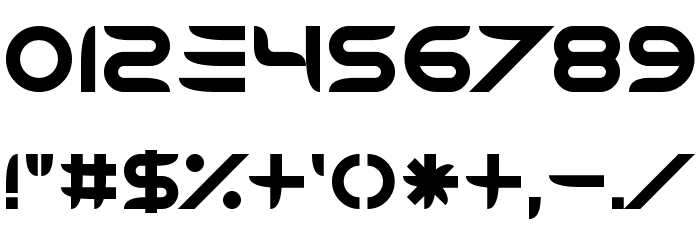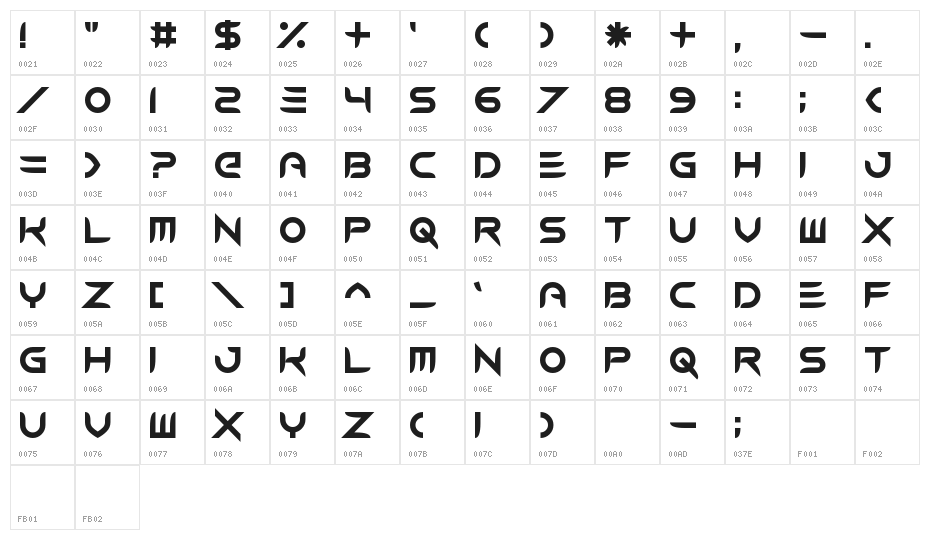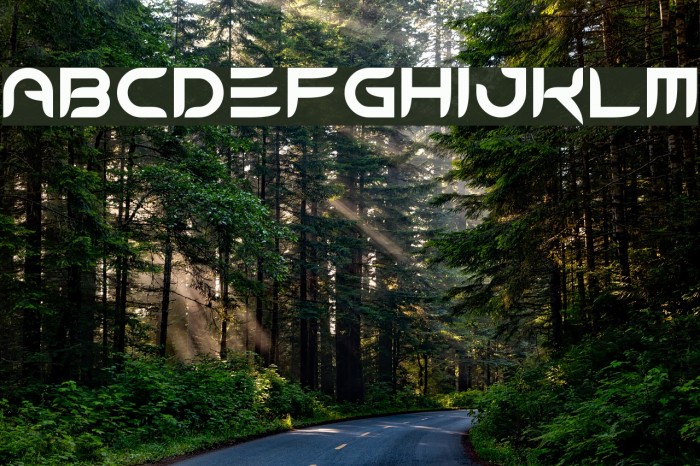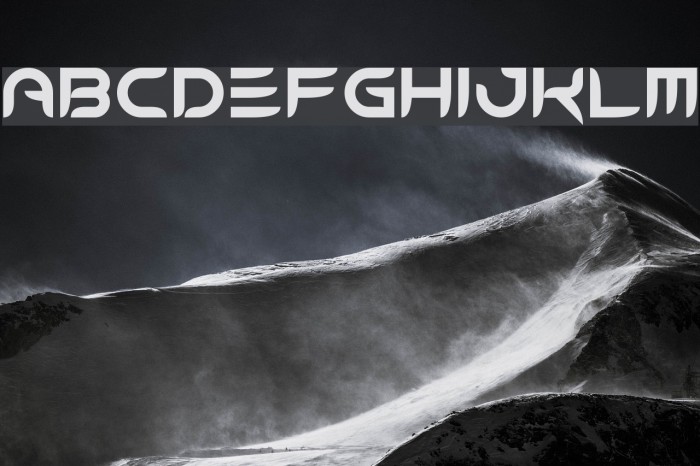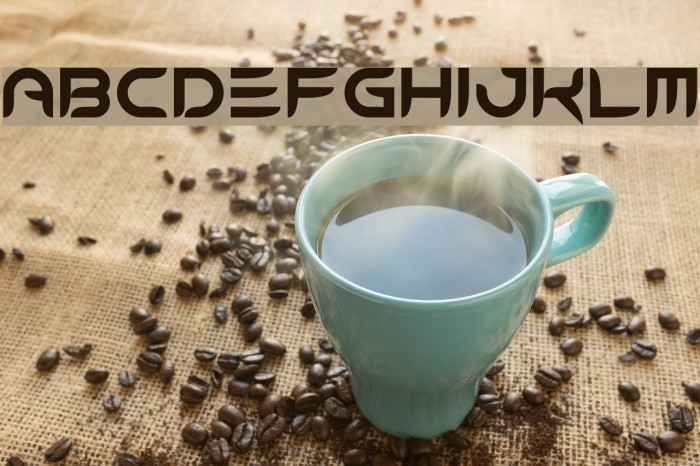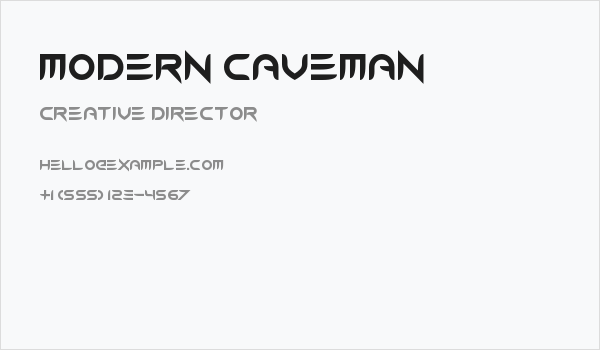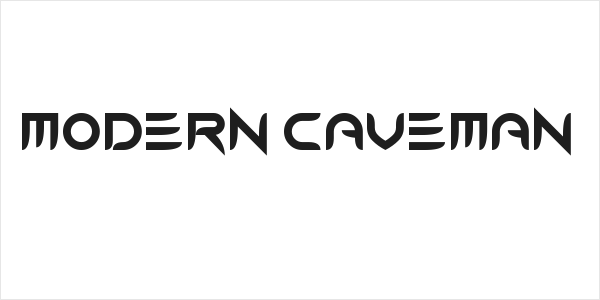
Modern Caveman Font
Modern Caveman Description
This font features a bold and futuristic design with a distinct geometric style. The characters are crafted with sharp angles and smooth curves, creating a dynamic and modern appearance. The uppercase letters are particularly striking, with unique cuts and shapes that give them a strong presence. The lowercase letters maintain the same boldness, ensuring consistency throughout the typeface. Numbers and special characters are designed to match the overall aesthetic, making this font versatile for various uses. Its bold weight and unique style make it ideal for attention-grabbing headlines and creative projects.